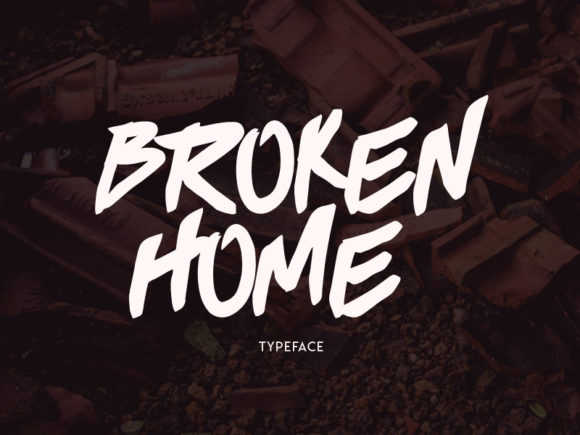
The Power of Broken Home Font: Elevate Your Designs with a Cool, Paint-Brushed Display Font
An Honest Review of Broken Home Font
What I Love About Broken Home Font
- ✨ Unique Aesthetic: Broken Home’s paint-brushed texture gives it a distinct, cool look that’s perfect for making a statement.
- ✅ Versatility: Despite its bold style, Broken Home can be used across various design projects, from posters and logos to social media graphics.
- 💡 Easy to Read: Even with its artistic texture, the font remains surprisingly legible, making it ideal for headlines and titles.
While Broken Home is an excellent font, there are a few things to keep in mind:
- 🤔 Not Suitable for Body Text: Due to its bold and textured nature, Broken Home is best used for headlines and titles rather than body text.
- ⚠️ Limited Formality: The font’s casual, artistic vibe means it might not be the best choice for very formal or professional projects.
The Backstory of Broken Home Font
The Broken Home font was designed with the intention of capturing the raw, unpolished feel of street art. Its creator aimed to create a font that would stand out in any design, while still being versatile enough to work across various projects. The result is a font that’s both bold and beautiful.
| What makes Broken Home font unique? | Its paint-brushed texture and bold style make it stand out from more traditional fonts. |
| Is Broken Home difficult to read? | No, despite its artistic texture, Broken Home remains surprisingly legible, especially for headlines and titles. |
In conclusion, Broken Home font is an incredible asset for any design library. Its unique aesthetic, versatility, and ease of use make it perfect for a wide range of projects. Whether you’re a designer, crafter, or creative hobbyist, Broken Home is sure to elevate your designs and make them stand out.